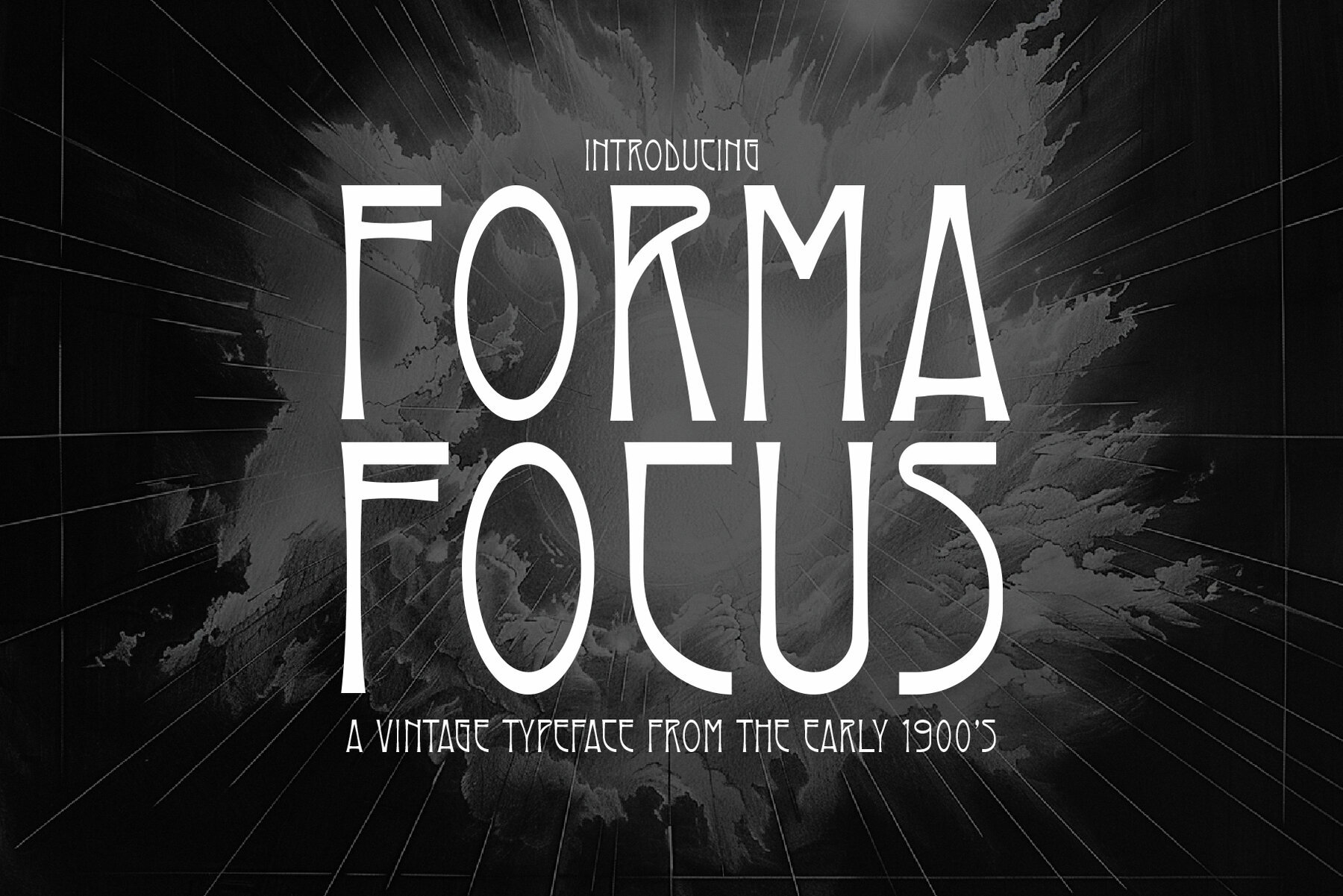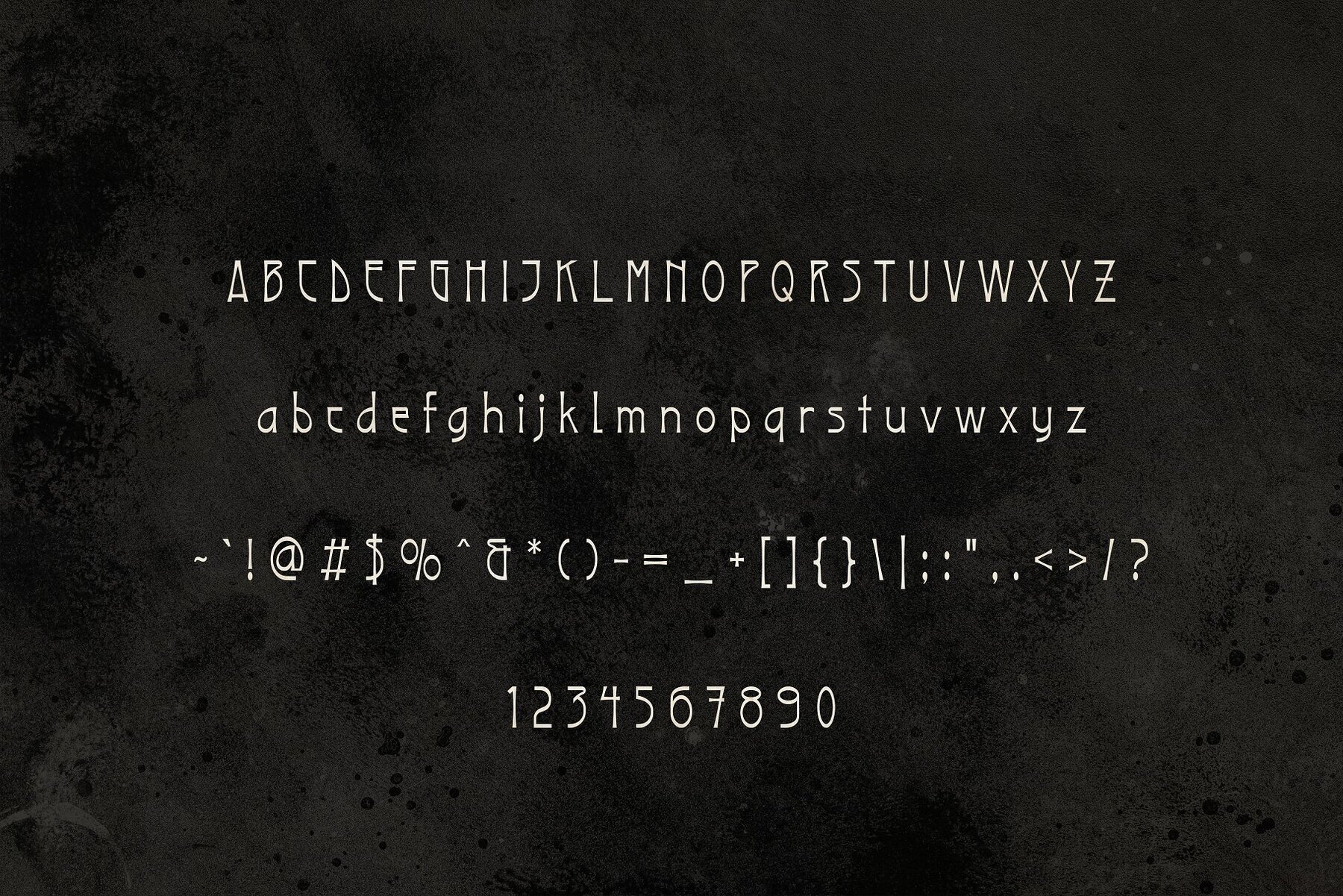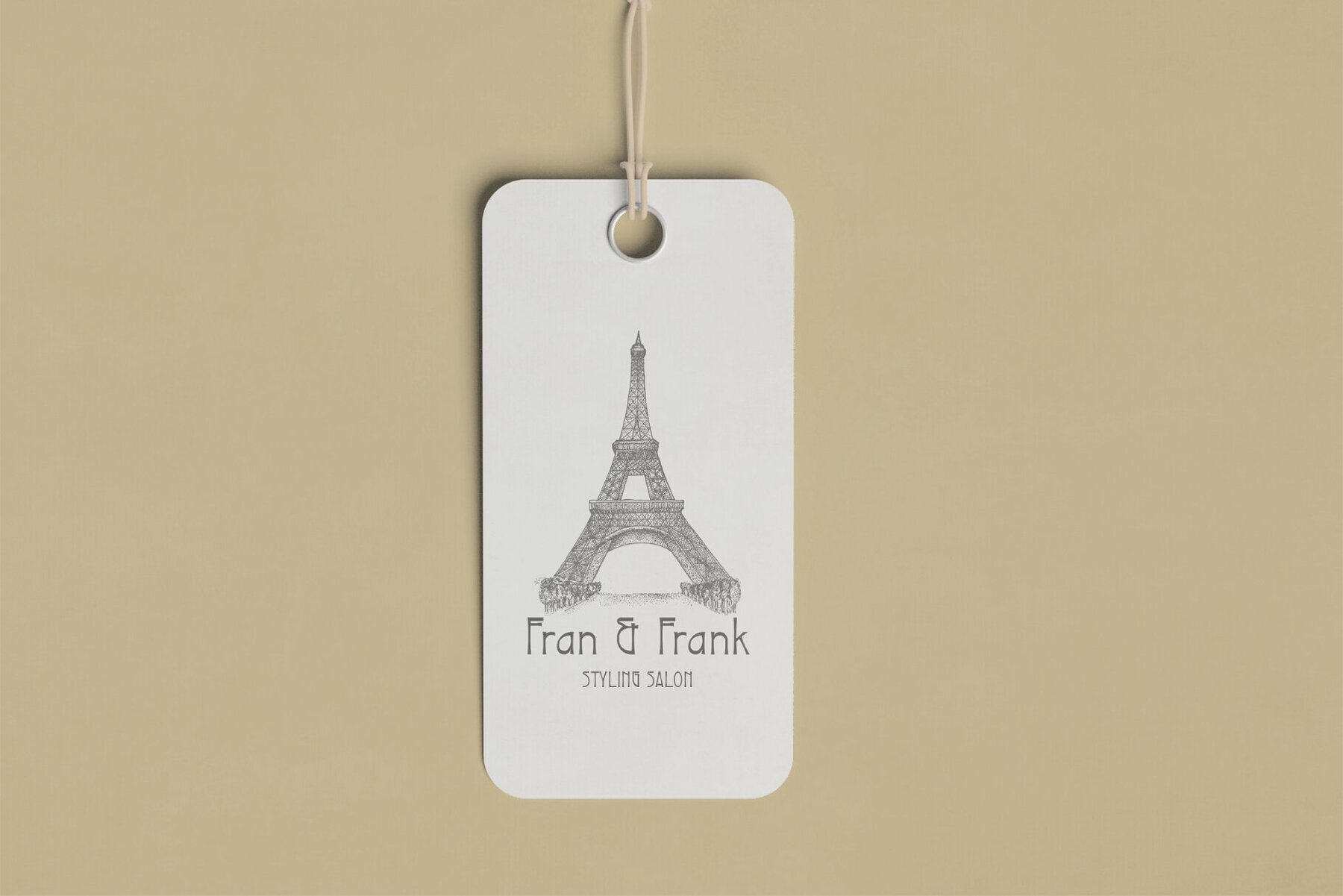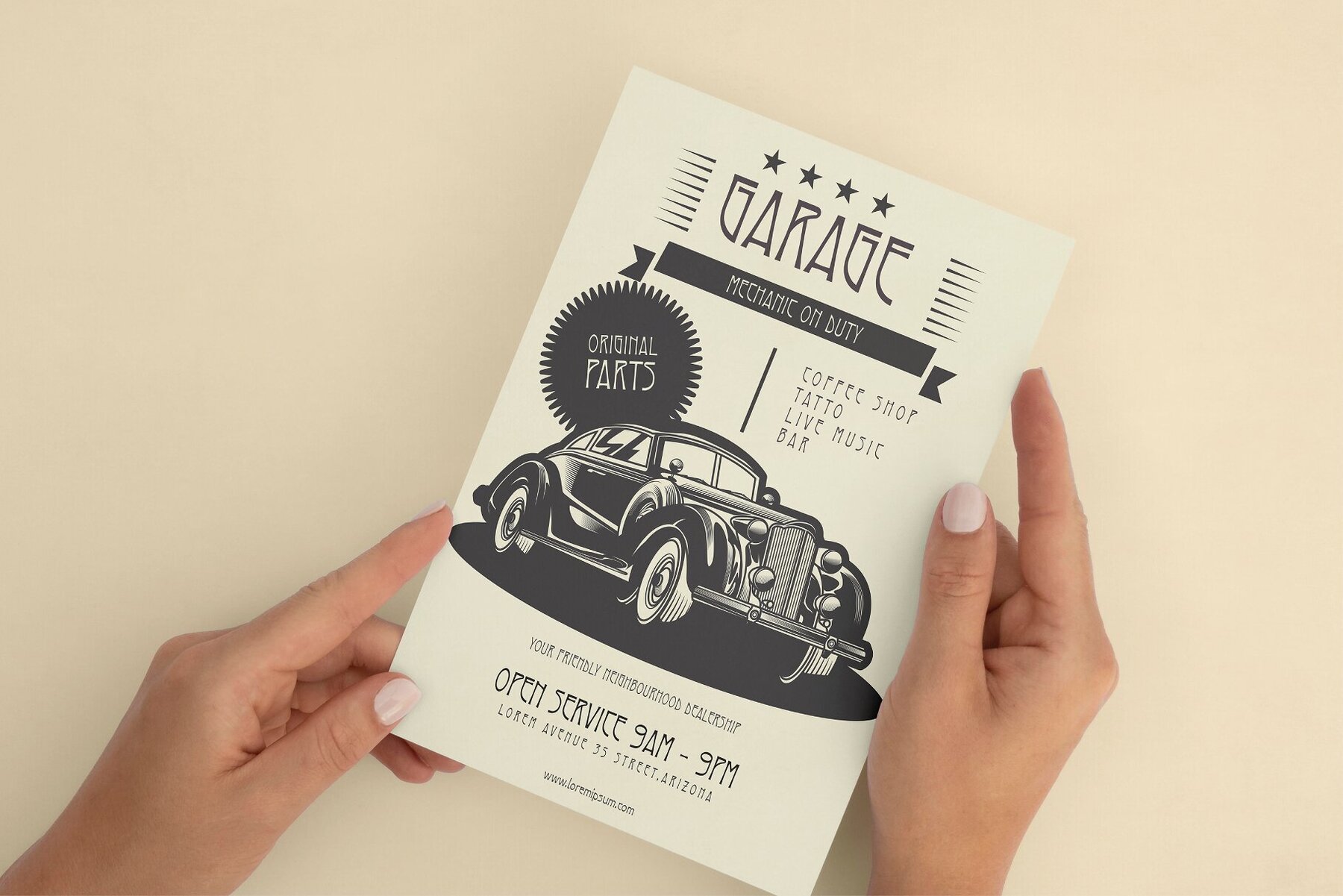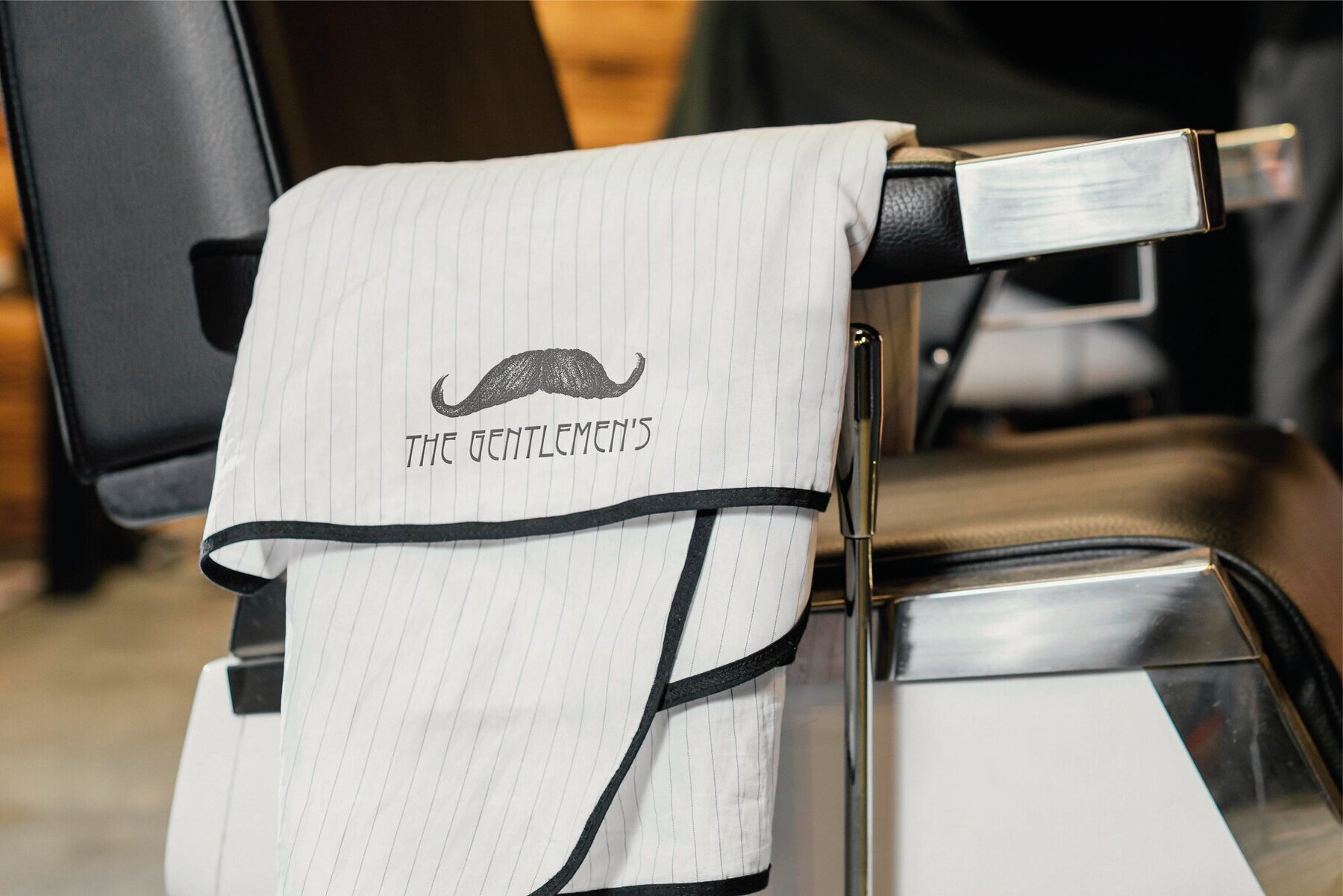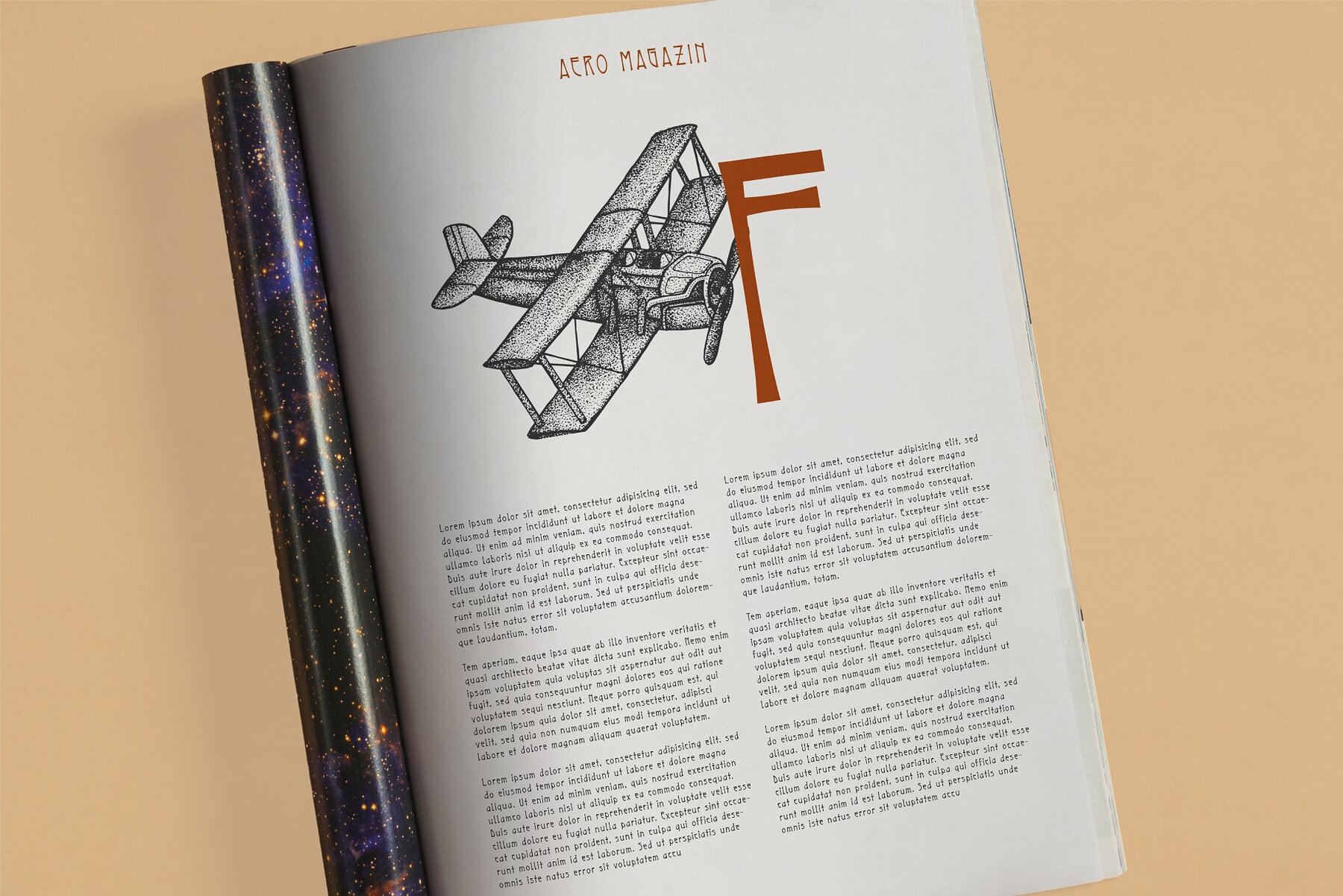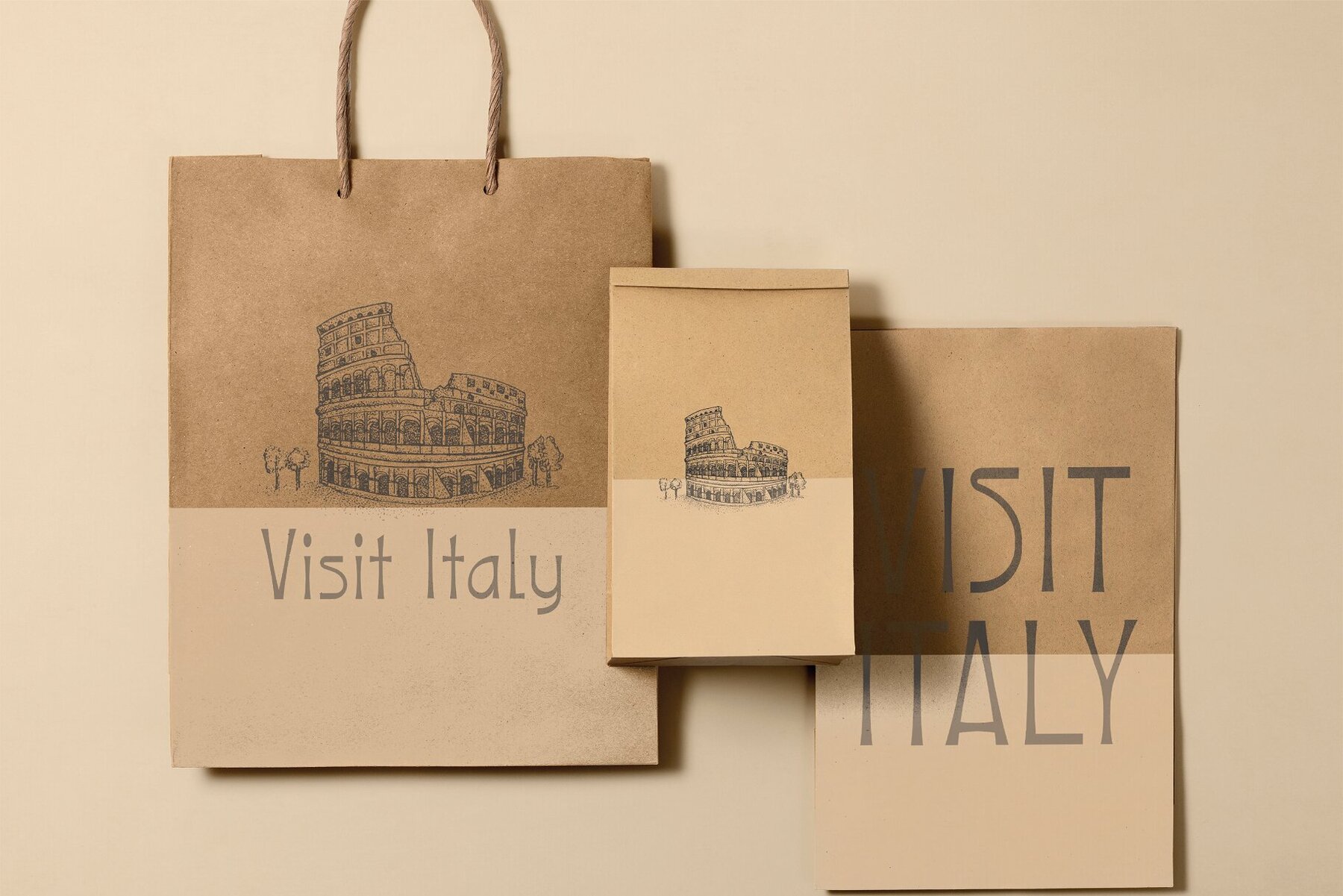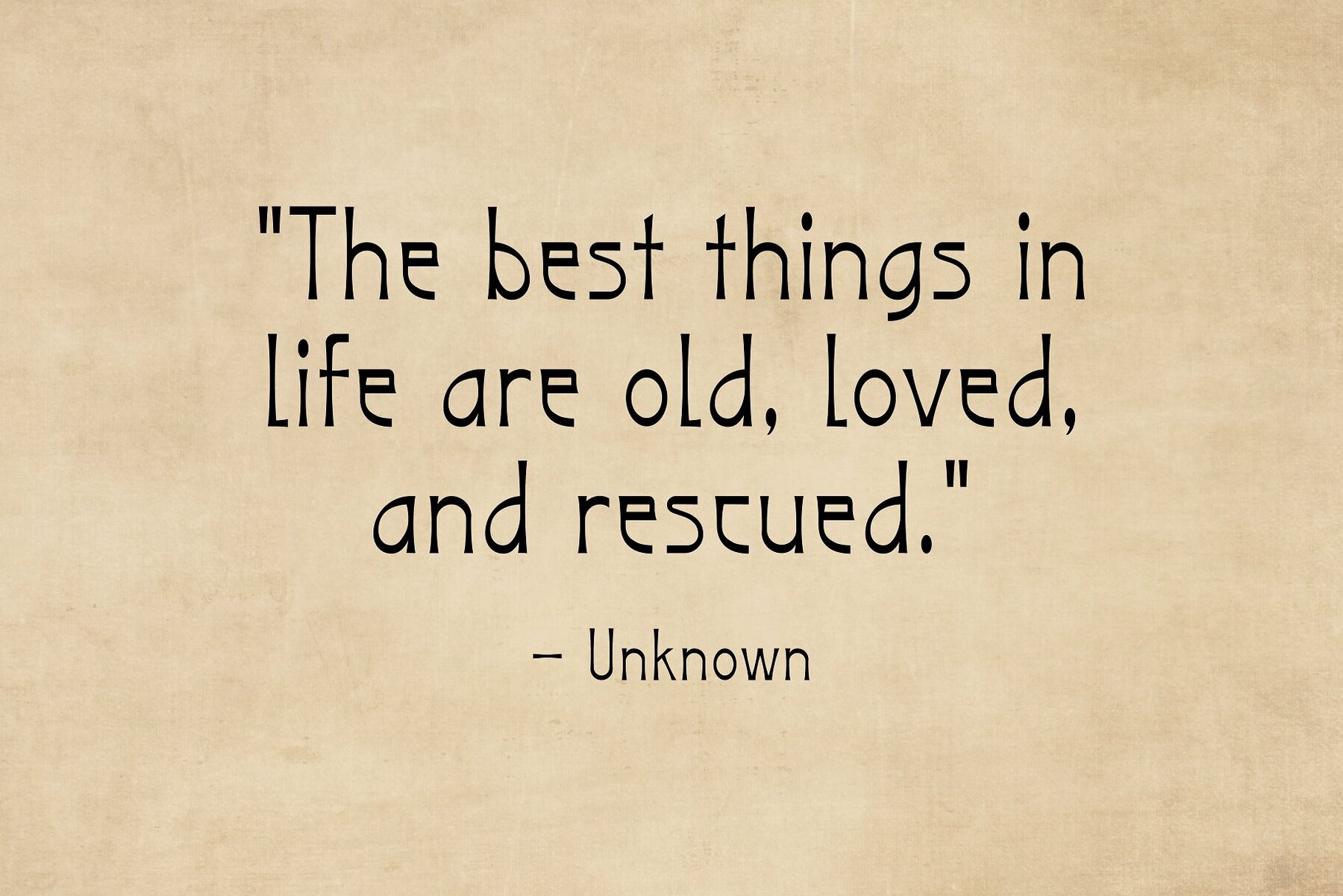
Forma Focus
Forma Focus is a typeface that brings the elegance and sophistication of the early 1900s to your design projects. This vintage-inspired font combines historical allure with contemporary design elements, making it an ideal choice for those seeking classic refinement. Its timeless beauty and graceful style make it perfect for instilling a sense of nostalgia in any work, from print materials to digital designs.
Whether you aim to evoke a bygone era or simply desire to add a touch of classic beauty, Forma Focus provides the perfect solution. Its meticulously crafted characters exude a sense of elegance and grace, enhancing any project with a sophisticated, vintage charm. Let Forma Focus transform your designs with the timeless elegance of the early 1900s, ensuring they stand out with an unparalleled classic beauty.